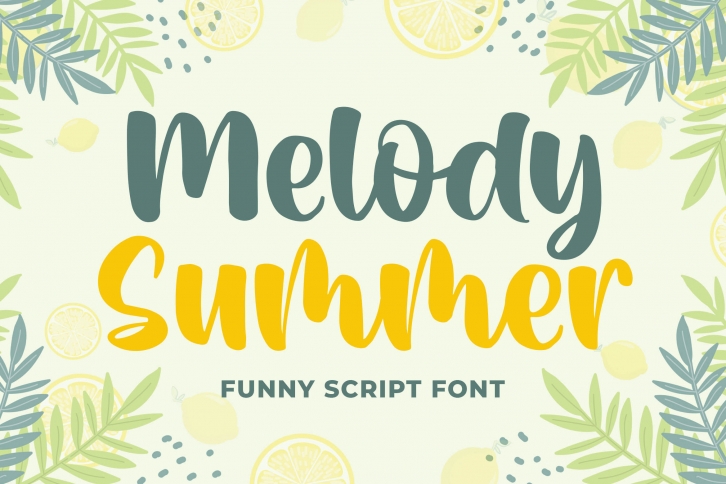
Melody Summer Funny Script Font Download
Introducing of our new product the name is Melody Summer Funny Script Font. Melody Summer inspired by quirky style with a fun theme very good for food poster, food menu, kids poster, flyer, craft etc
MULTILINGUAL ACCENT :
ØÆøæ¢ÐŒœÁĂÂÀÄĄÅÃǼĆČÇĈĊĎÉĔĚÊËĖÈĘĞĜĢĠĤÍĬÎÏİÌĮĨĴĶĹĽĻĿŃŇŅÑÓŎÔÖÒŐǾÕŔŘŖŚŠŞŜȘ ŤŢÚŬÛÜÙŰŲŮŨẂŴẄẀÝŶŸỲŹŽŻáăâäàąåãǽćčçĉċďéĕěêëėèęğĝģġĥíîïìįĩĵķĺľļŀńʼnňņñóŏôöòőǿõŕřŗśšşŝșťţ ŭûüűùųůũẃŵẅẁýŷÿỳźžż
FEATURES :
• Number
• Punctuation
• Multilingual
• PUA Encode
• Opentype